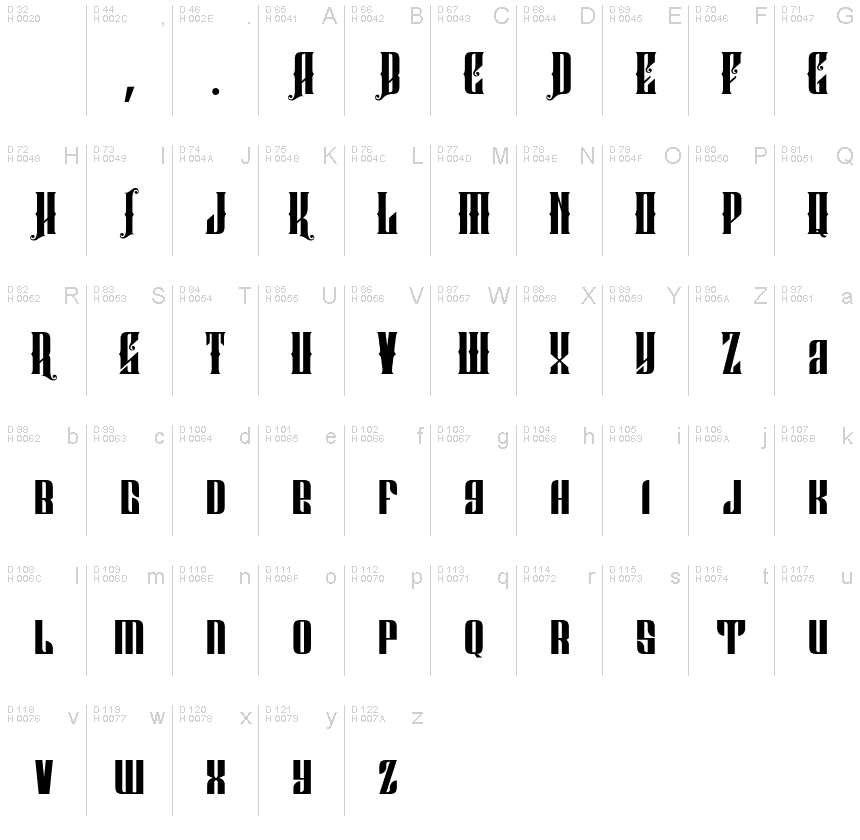
Aaksaraan Pipiktoriaan
Aaksaraan Pipiktoriaan font, designed by Eko Kurniawan, is a retro-inspired display typeface that exudes a vintage vibe. Its semi-bold weight and extra-condensed width make it perfect for creating eye-catching headlines, logos, and branding materials. With its unique styling, this font is suitable for projects ranging from posters and billboards to product packaging and book covers. Its bold yet elegant appearance will capture the attention of any audience, making it ideal for creative professionals looking to add some retro flair to their designs. Get your hands on Aaksaraan Pipiktoriaan today and elevate your design game!